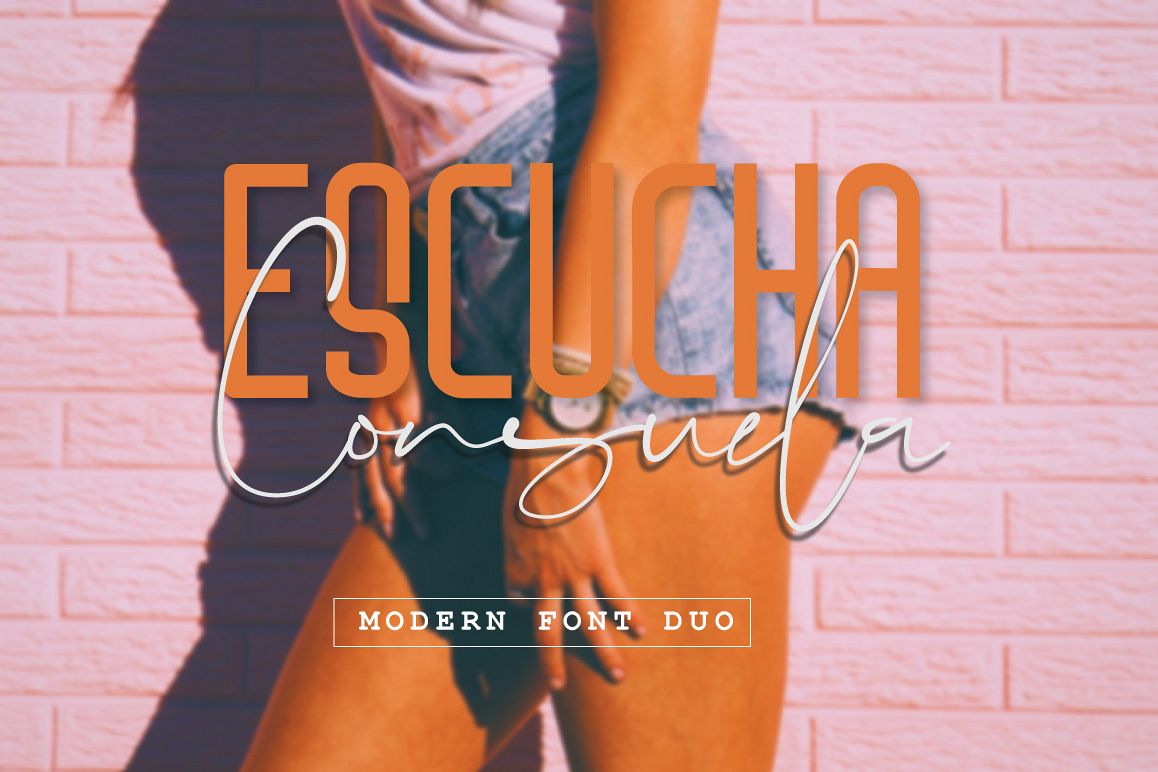
Escucha Consuela Font Duo
Escucha
Consuela Script
Introducing the Escucha Consuela Font Duo; A stylish & modern of sans & script typefaces.
Escucha Consuela offers beautiful contrasting typography for a diversity of design projects, including; logos & branding, packaging design, social media posts, advertisements & product designs.